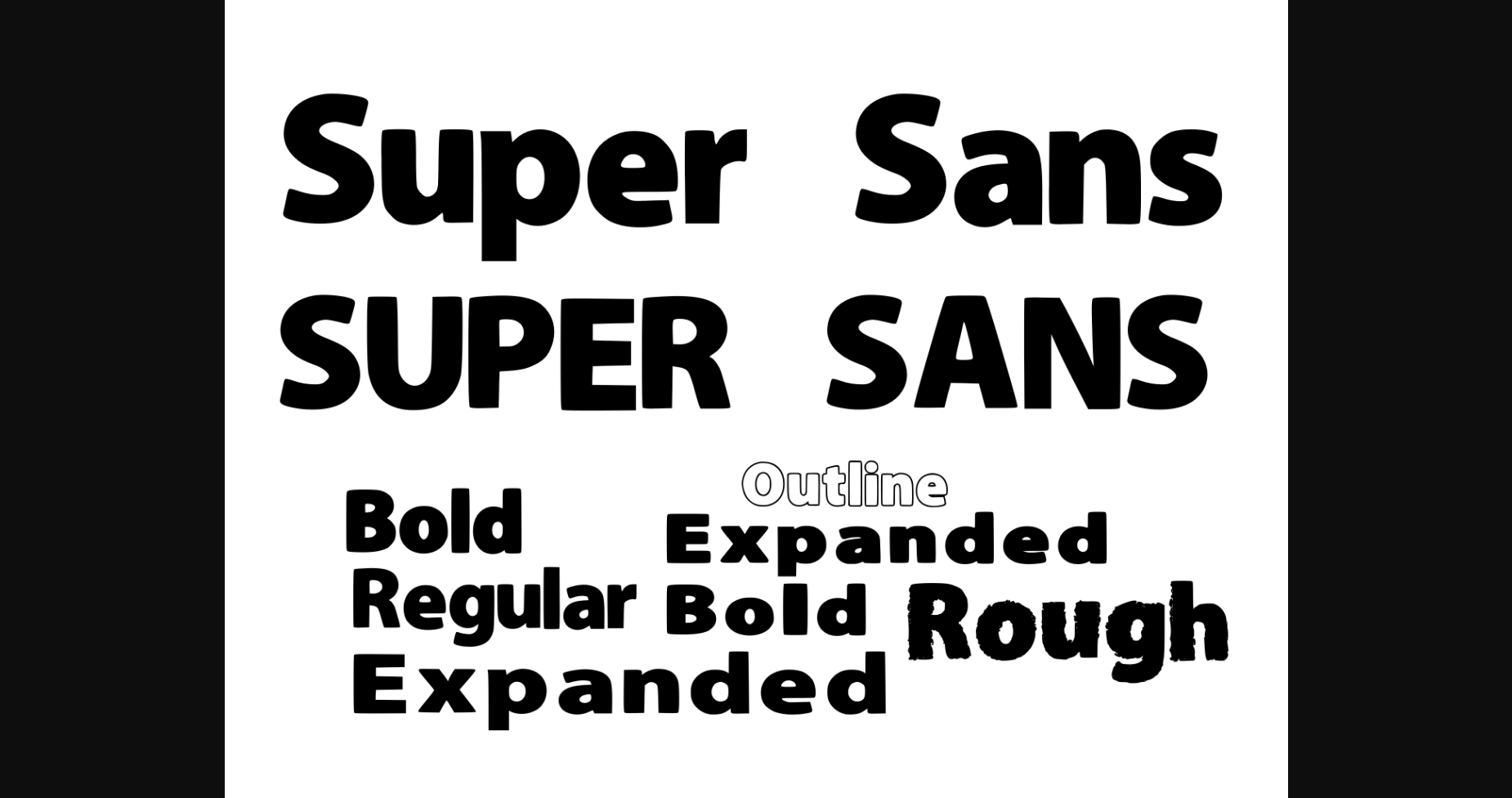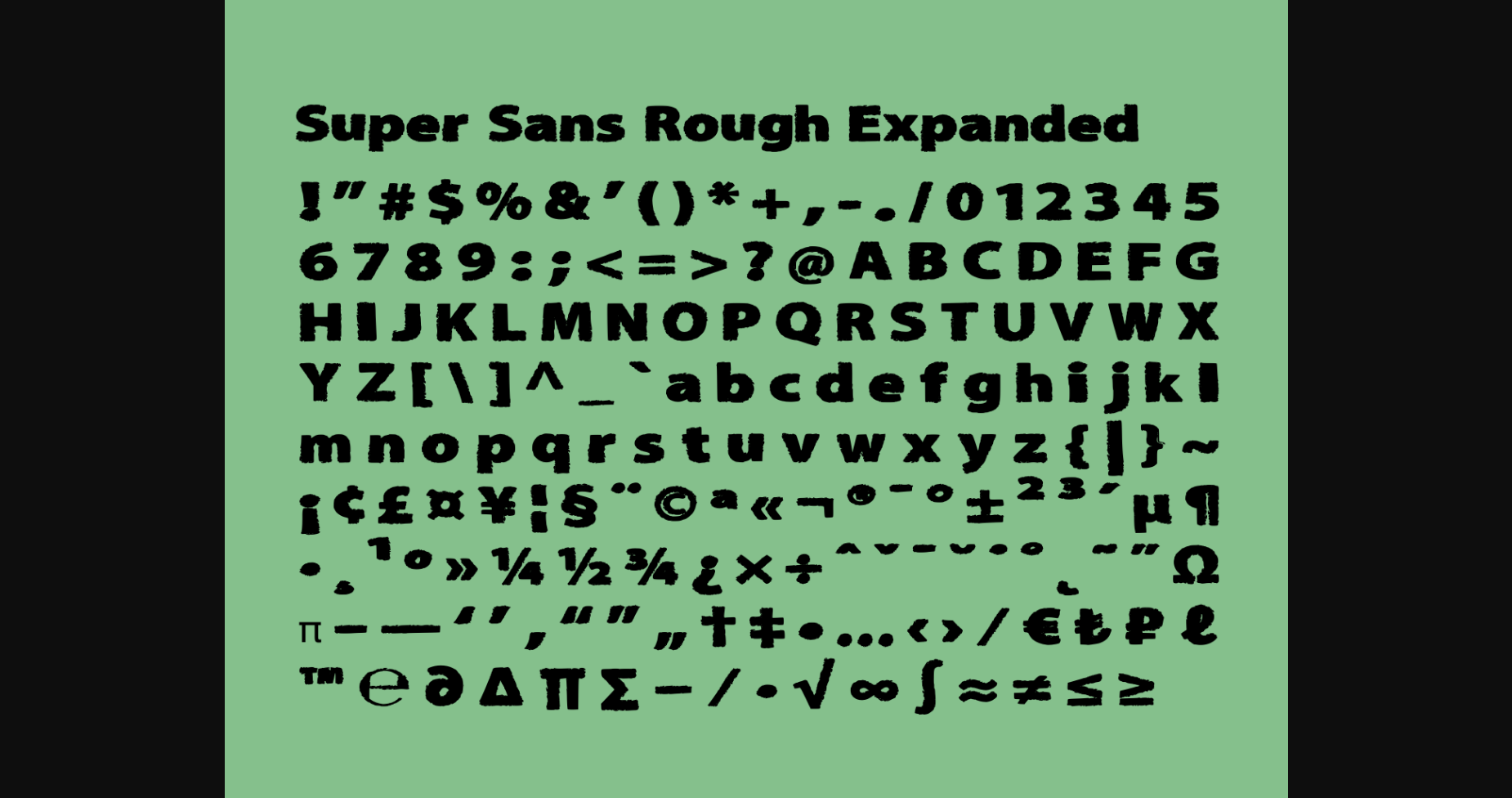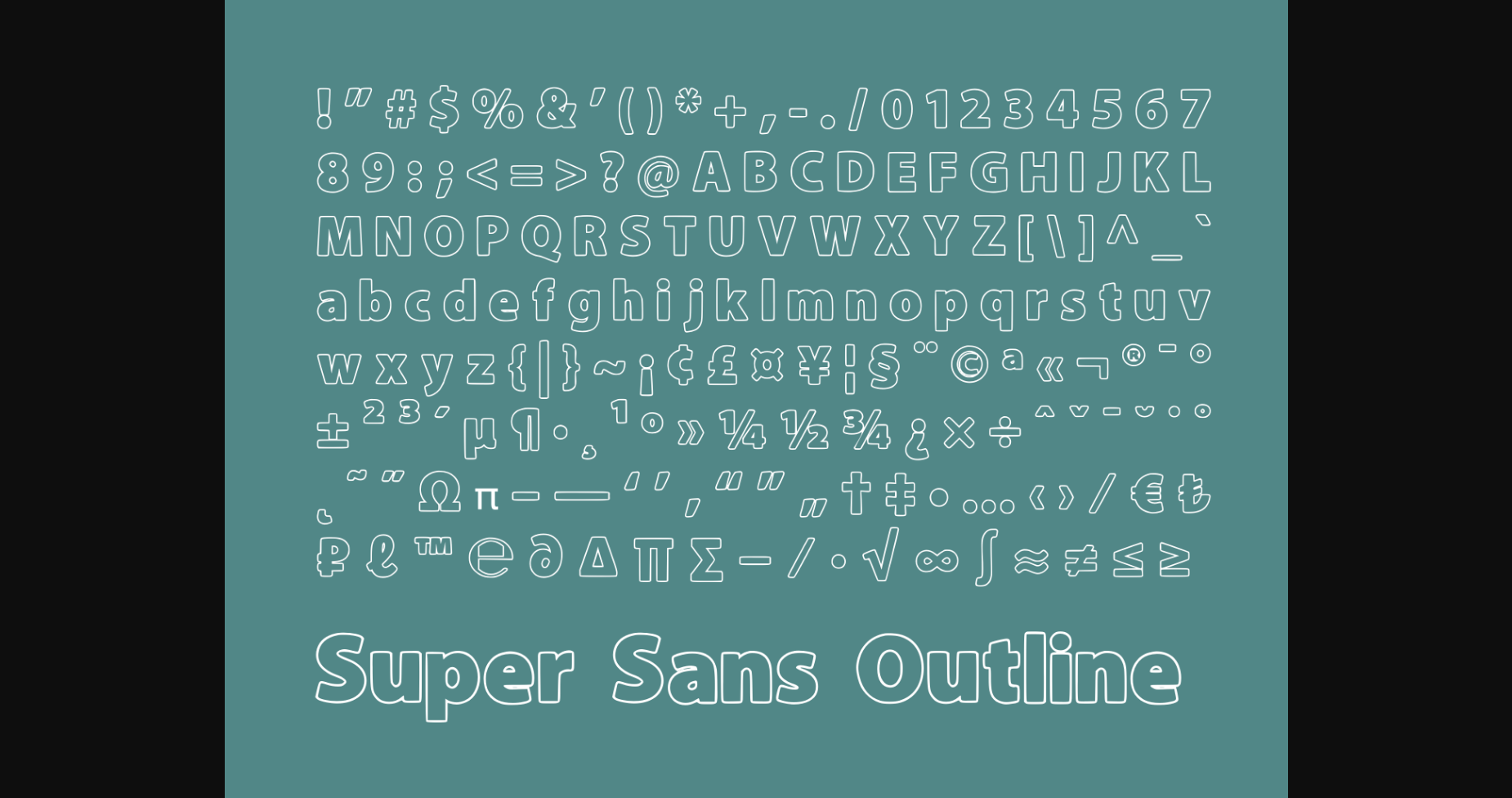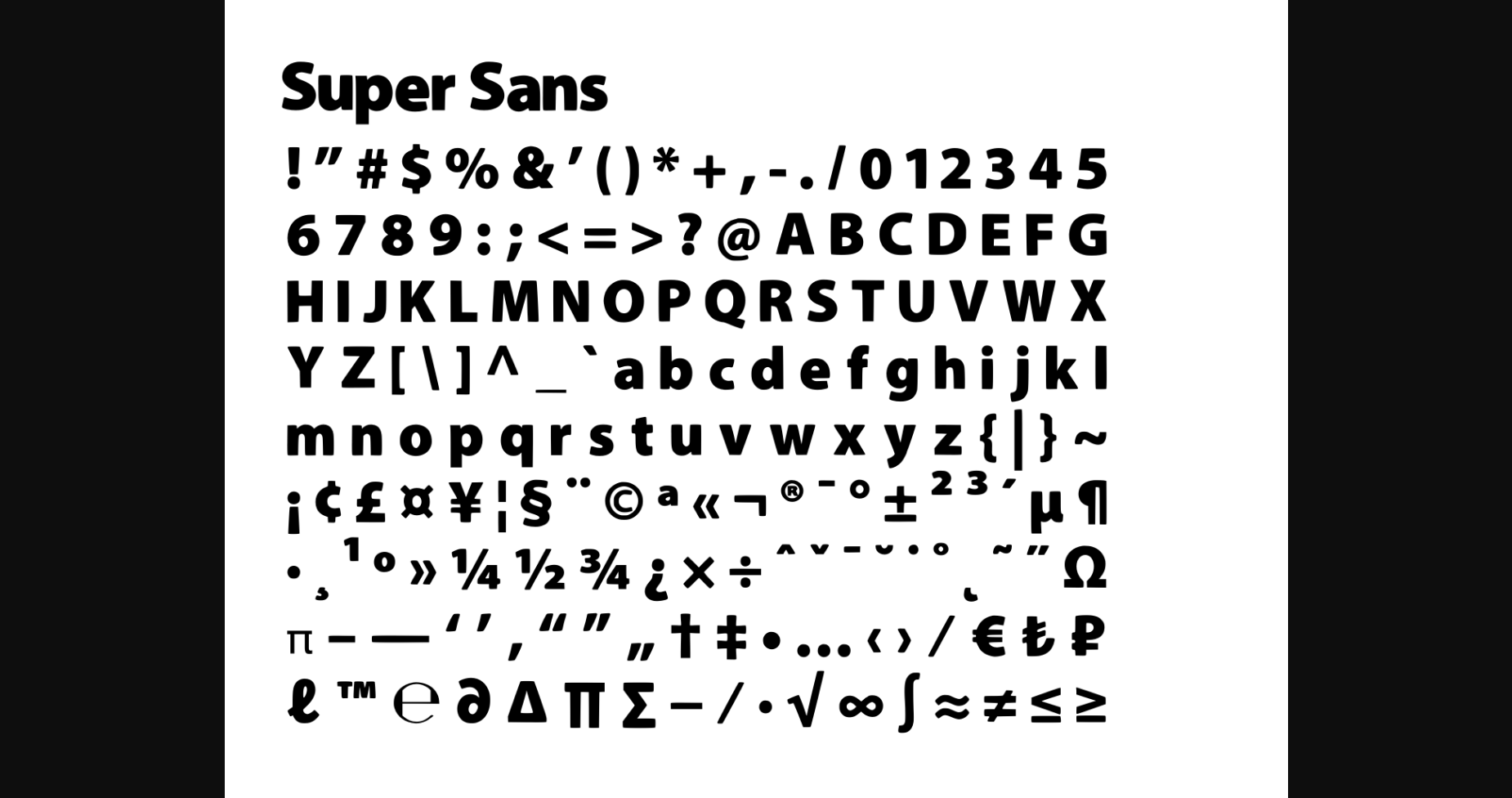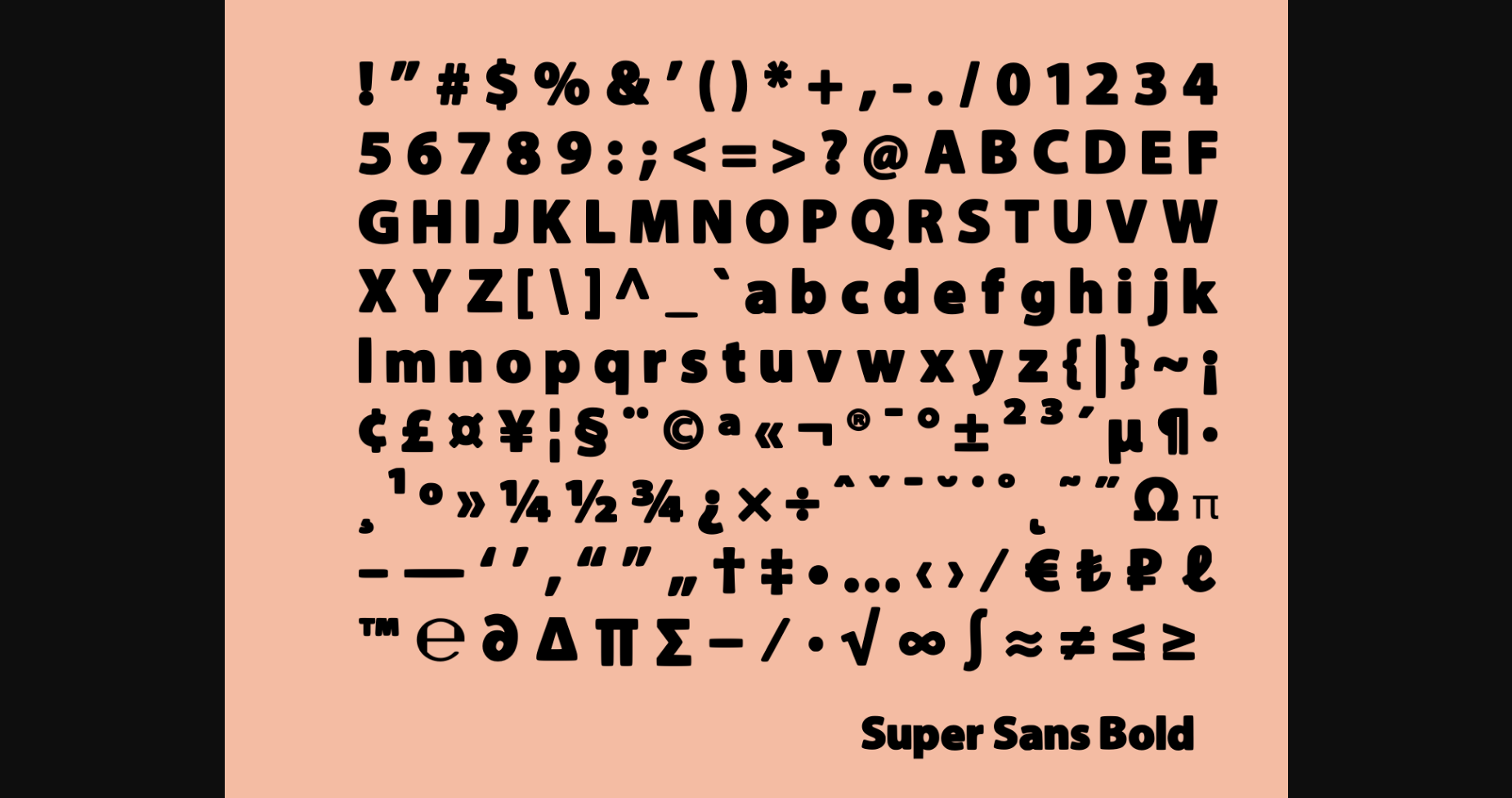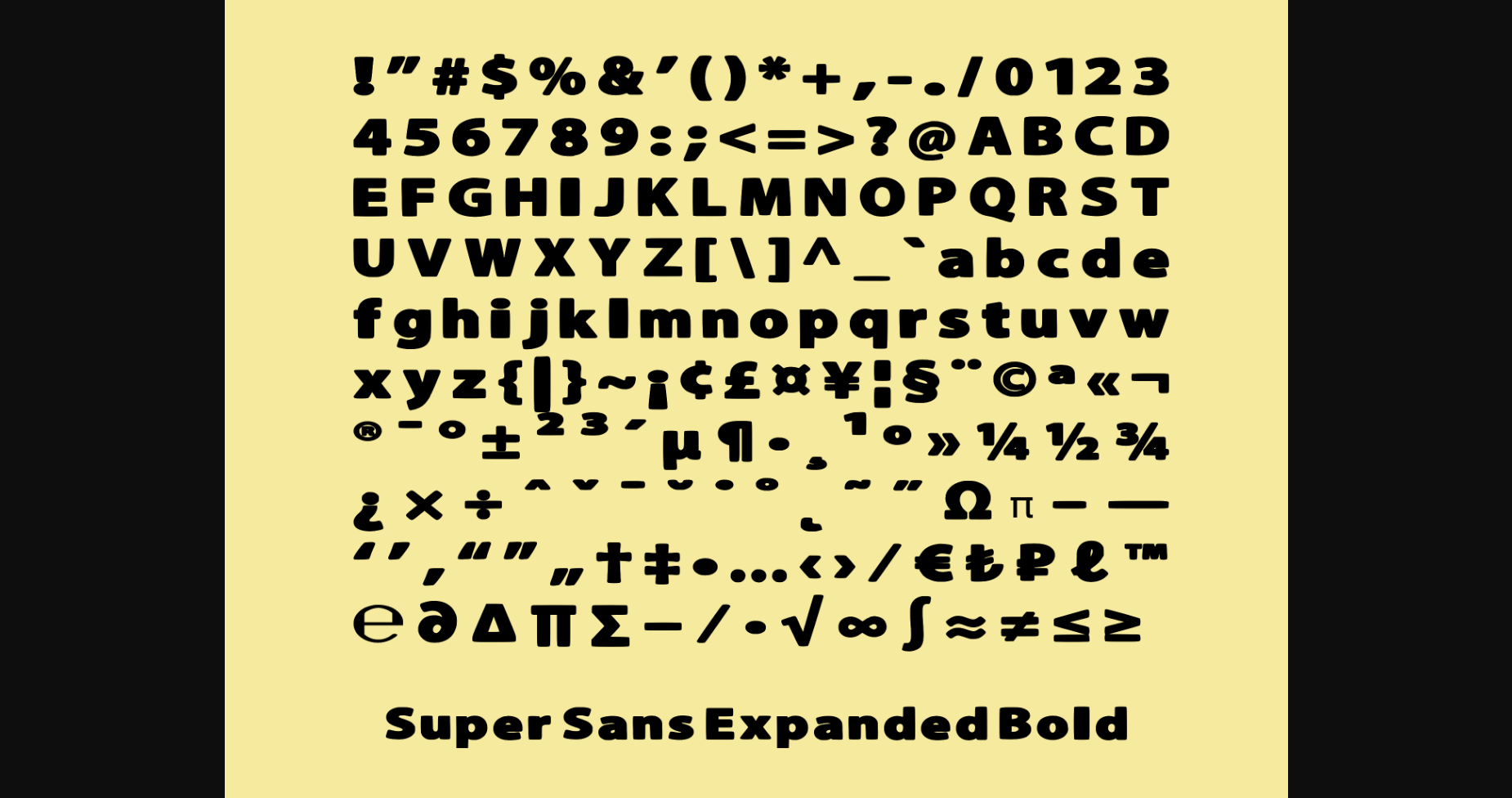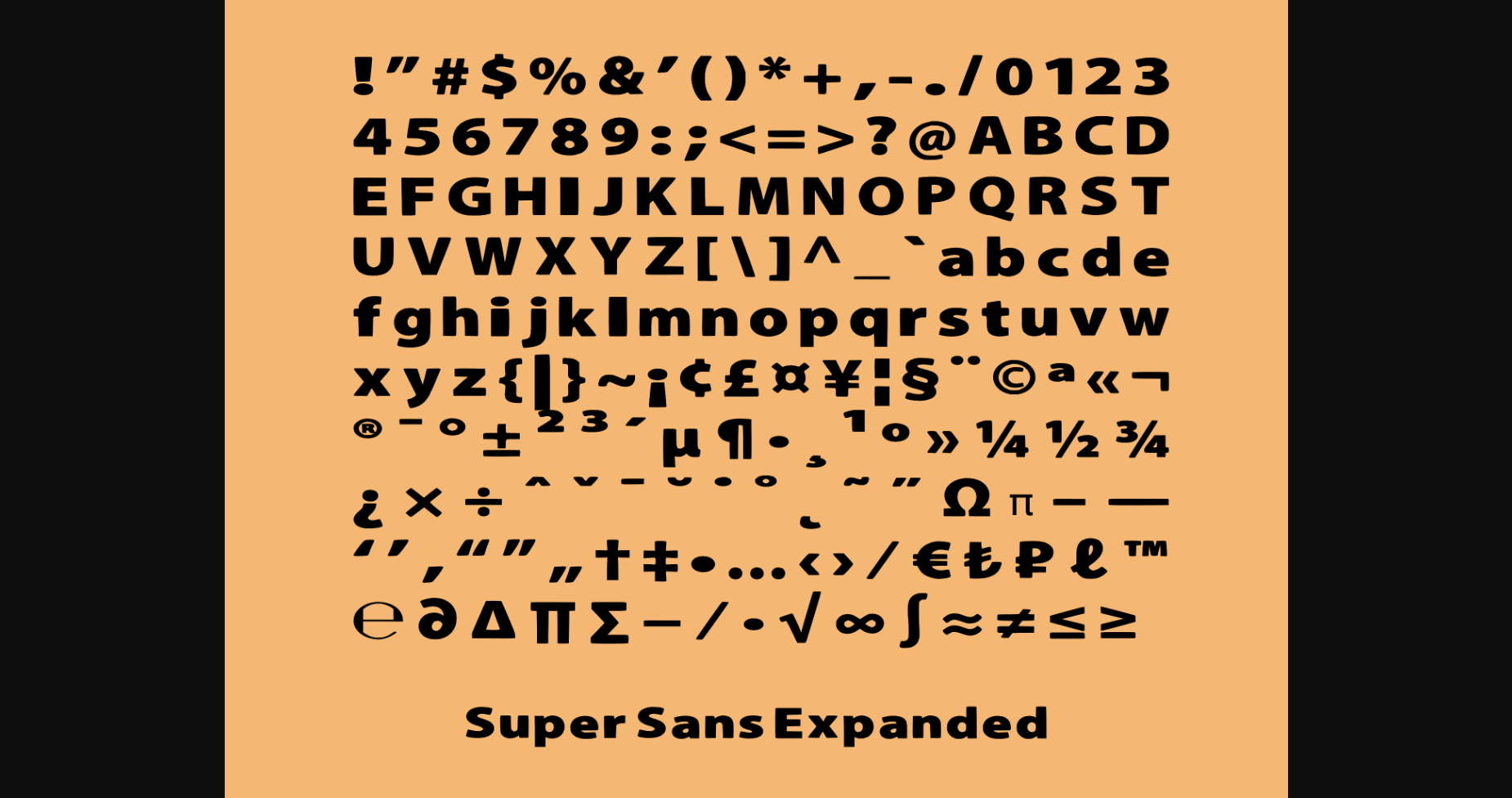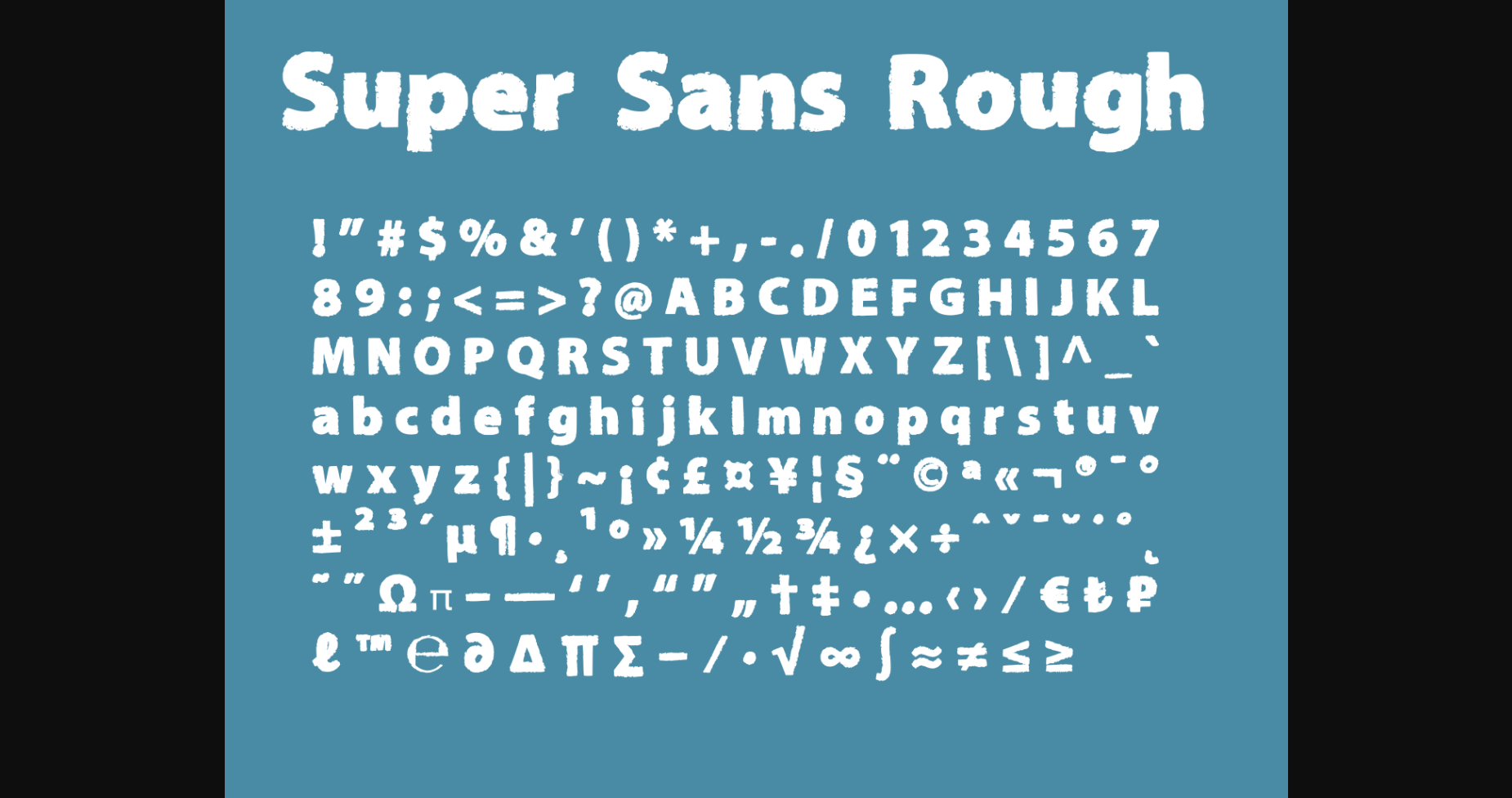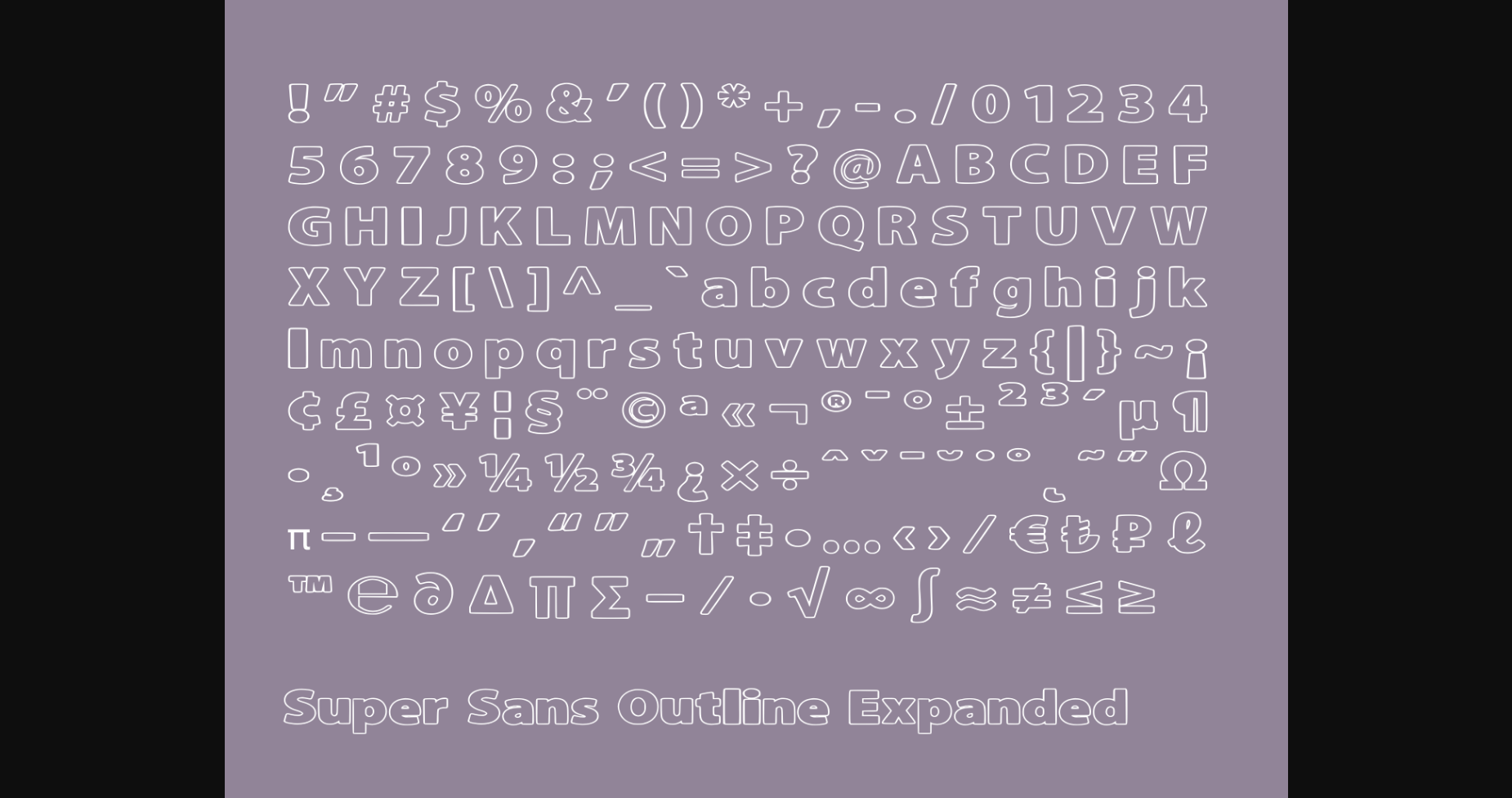
Super Sans Font
About Super Sans Font
Super Sans is a modern sans serif font family with semi-rounded, soft edges. It comes in several styles and typefaces, including an expanded, outline, and rough variant.